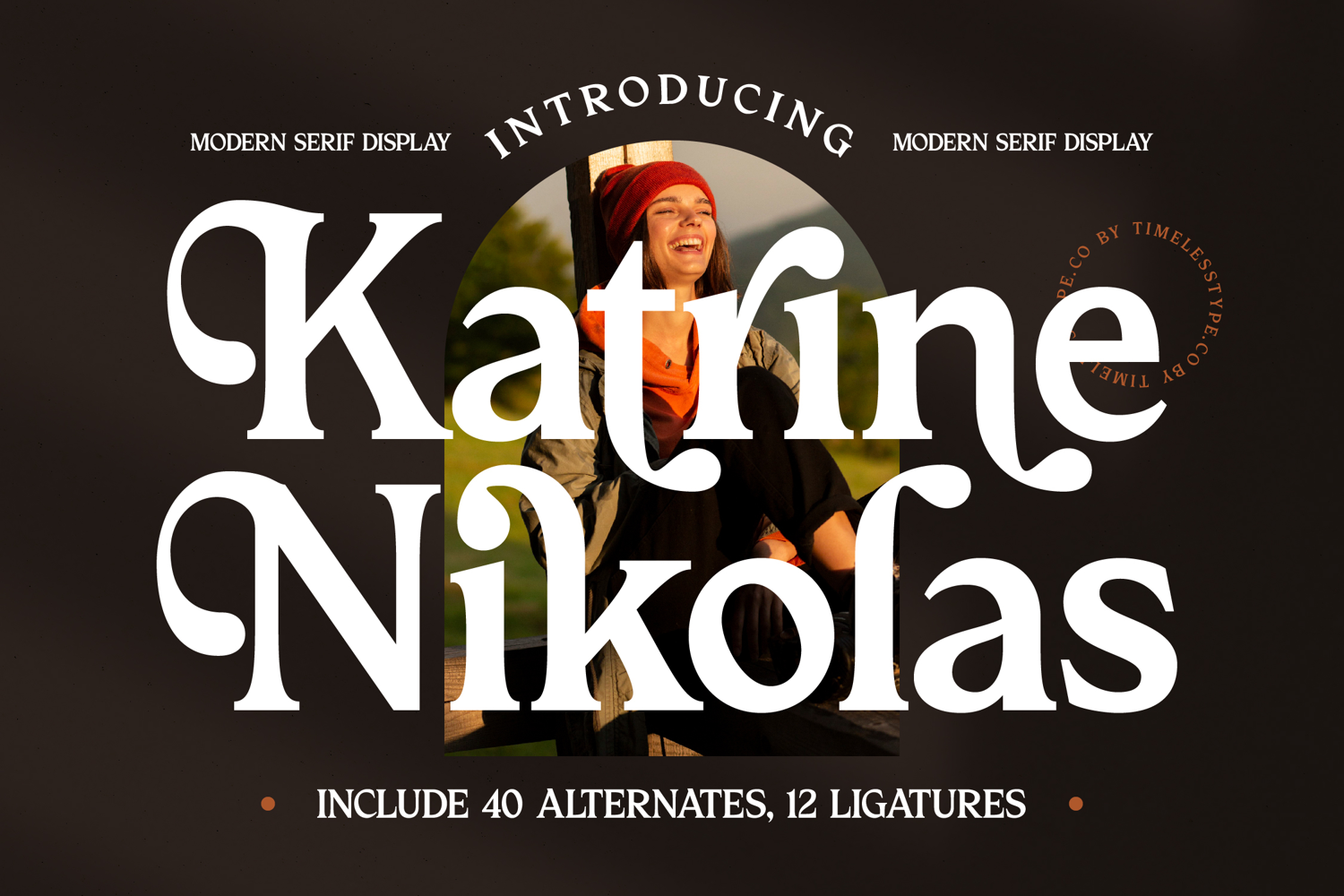
Katrine Nikolas - Modern Serif Display
Katrine Nikolas
Katrine Nikolas Italic
Katrine Nikolas - Modern Serif Display
Elevate your designs with unparalleled elegance using Font Katrine Nikolas - Modern Serif Display Serif Display. This captivating modern serif display typeface masterfully blends timeless sophistication with contemporary flair. Its distinctively high-contrast strokes and graceful curves immediately command attention, transforming every word into a powerful visual statement. Perfect for making an unforgettable first impression.
Discover a world of typographic artistry within Font Katrine Nikolas - Modern Serif Display Serif Display. This exquisite font boasts an impressive collection of 40 alternates and 12 ligatures, providing designers with immense creative freedom. These intricate details allow for truly customized headlines and branding elements, ensuring your projects stand out with a unique, handcrafted feel and exceptional versatility.
Perfectly suited for your most ambitious projects, Font Katrine Nikolas - Modern Serif Display is the ideal choice for luxury branding, high-end editorial design, elegant packaging, impactful headlines, and sophisticated invitations. Its distinguished presence guarantees a premium feel across all mediums. With its extensive multilingual support, Font Katrine Nikolas - Modern Serif Display adapts seamlessly across global markets, making it incredibly versatile for international projects.